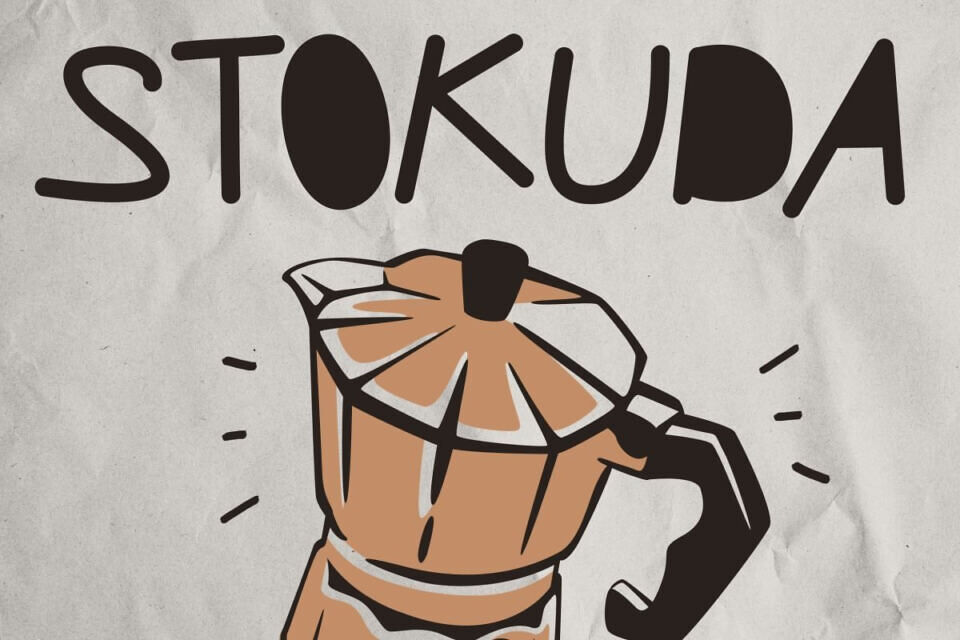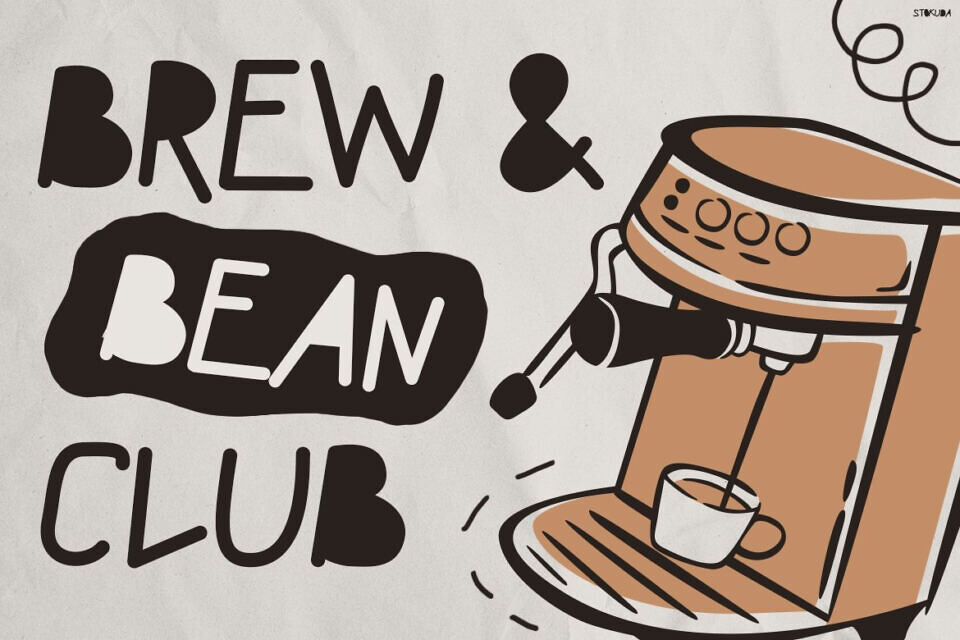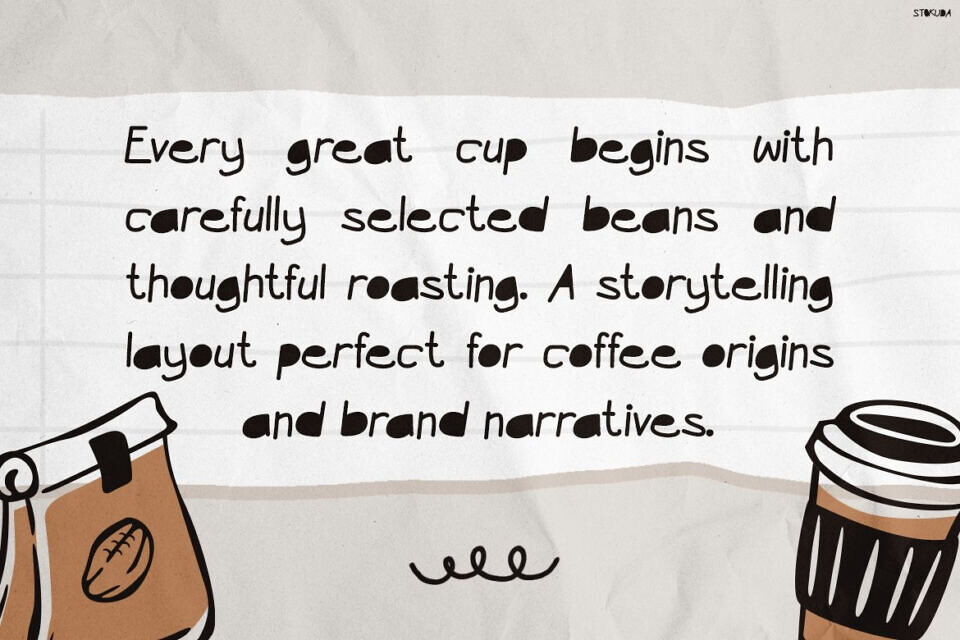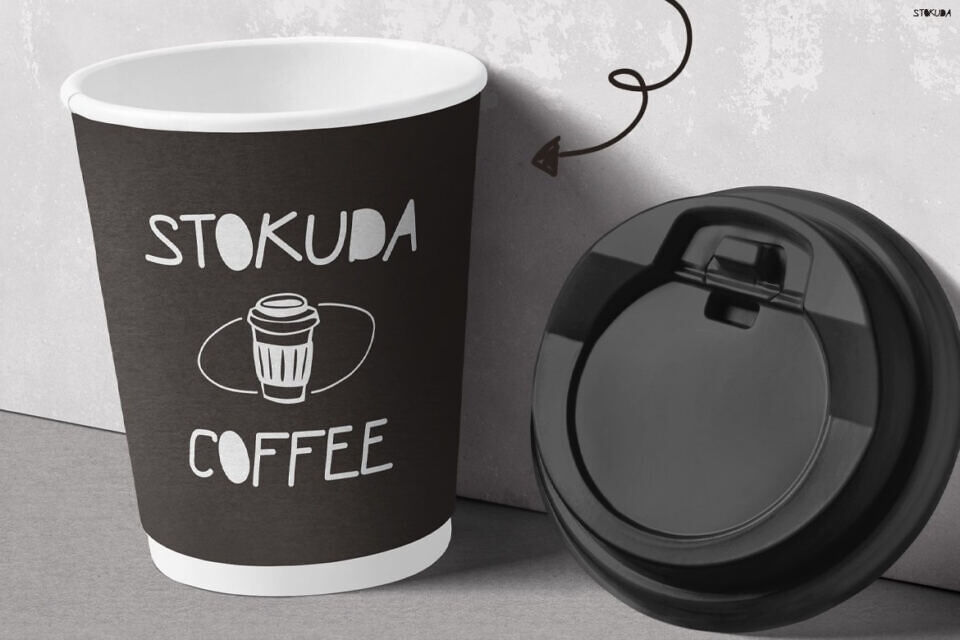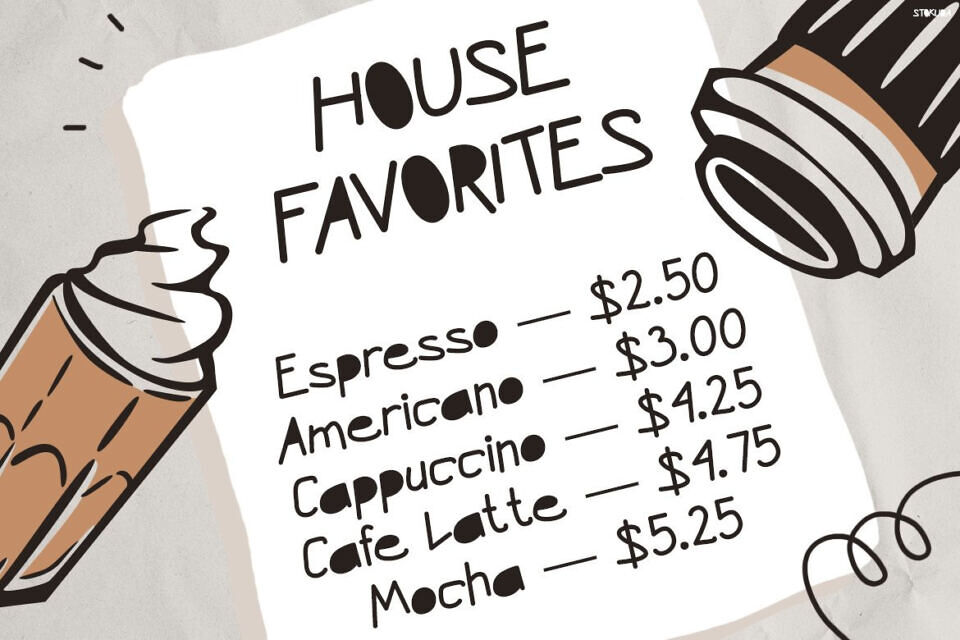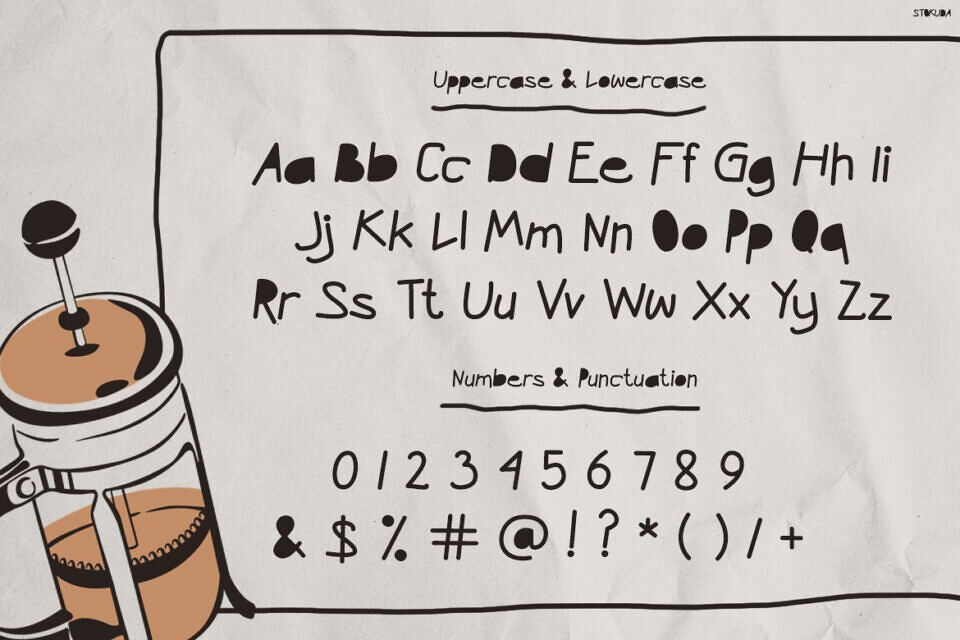
Stokuda is a playful font that adds a personal touch to designs. Its hand-drawn style and cozy feel create a friendly atmosphere, making it perfect for coffee shops, bakeries, and artisan products.
The bold typography is highly readable, while unique imperfections make each headline authentic and memorable. This charming font works well for branding, packaging, and social media, evoking a sense of warmth and approachability that resonates with customers.